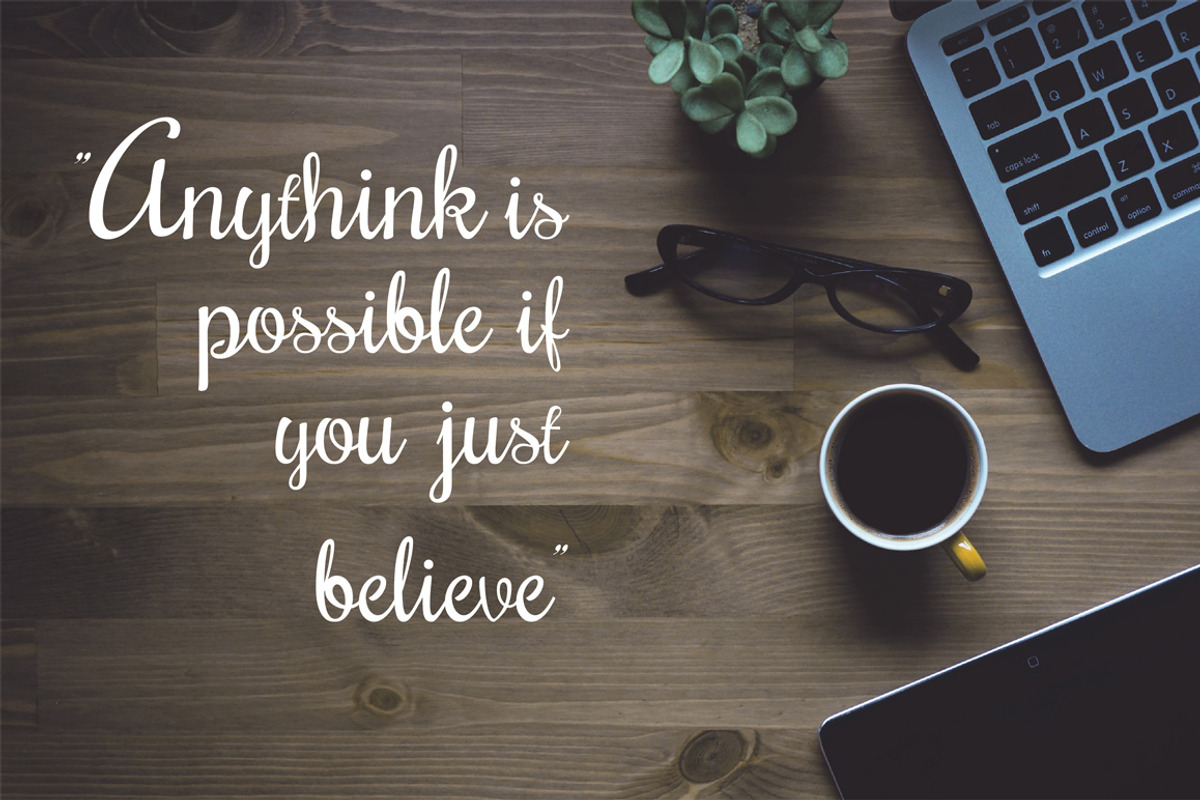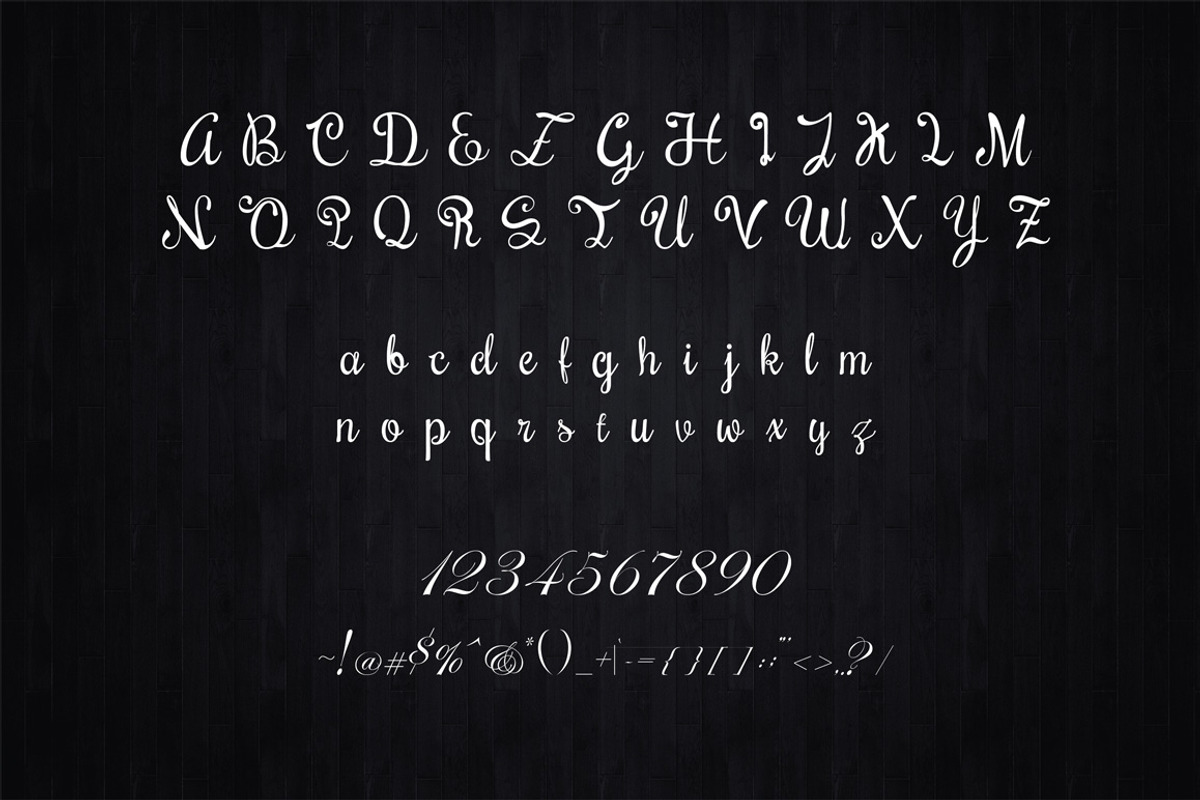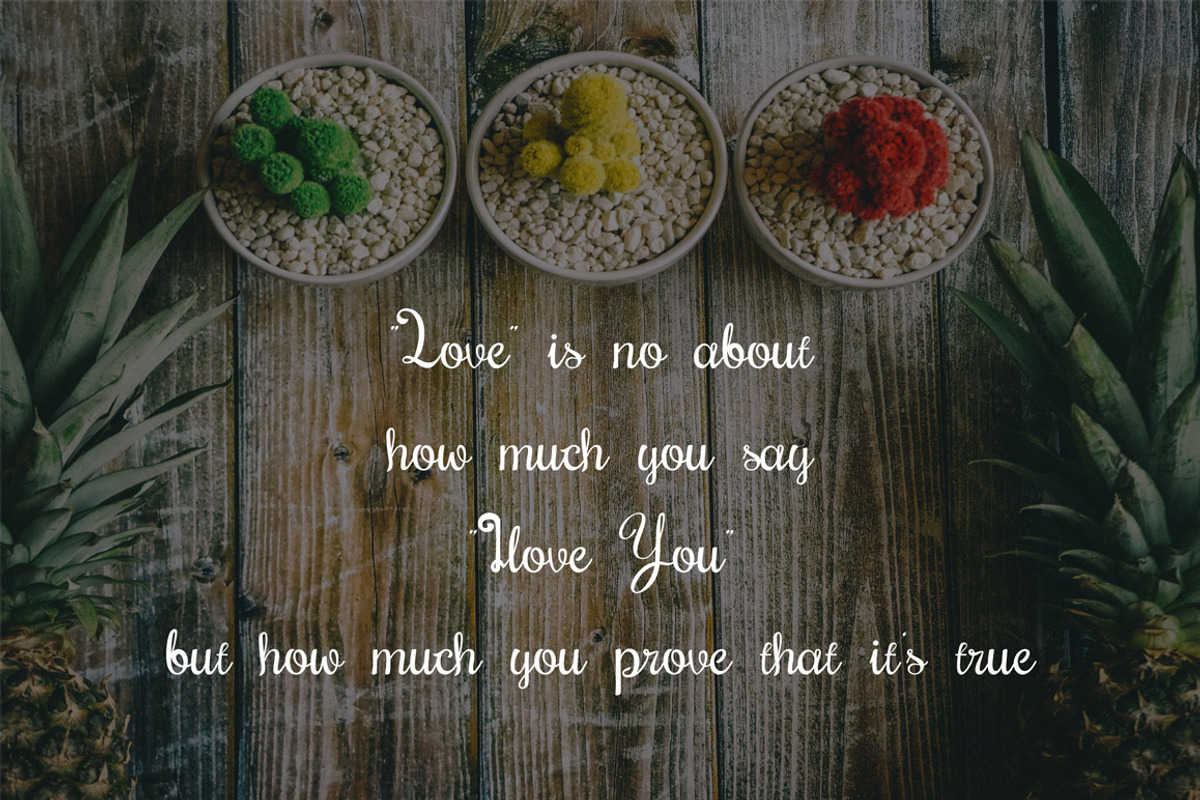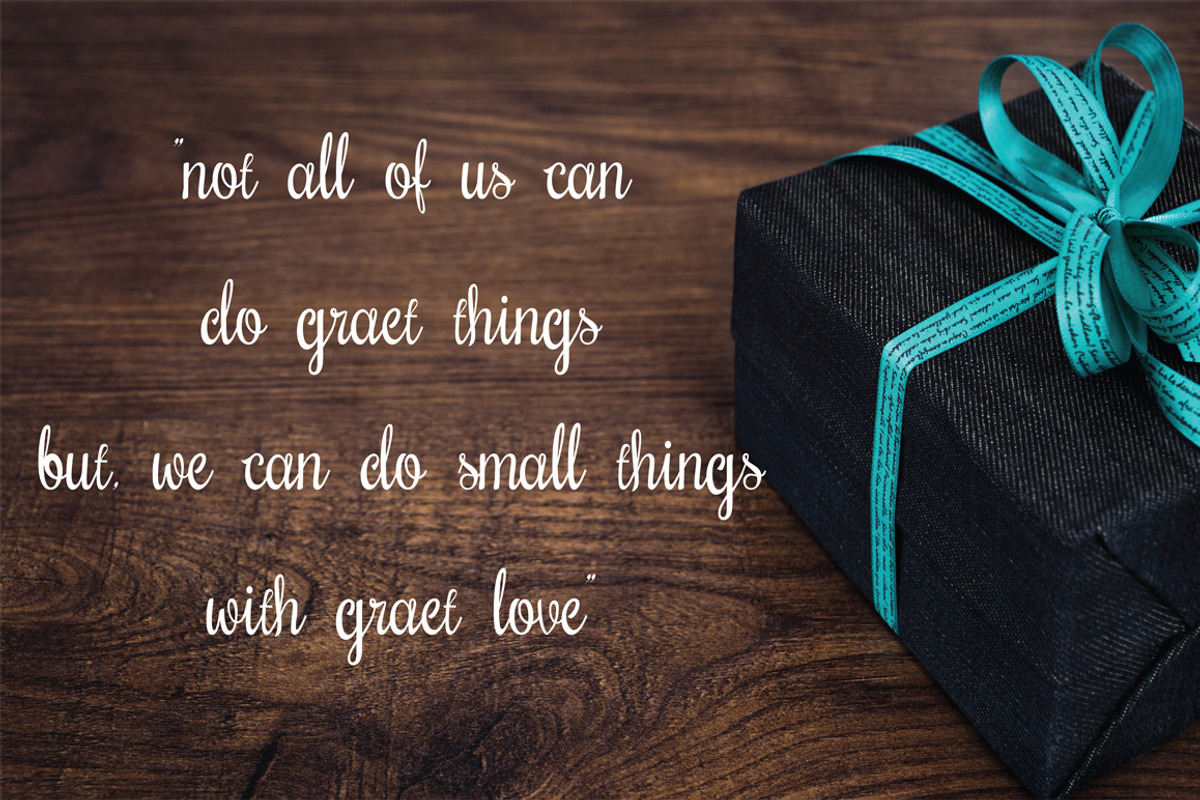
Swangga Hand Script Fonts
Swangga Hand Script Fonts by Artha Desain is a font selected for branding, posters, packaging, typography.
- Use Swangga to make a elegant logo, package design, shirts, invitations, and so much more.
Why Swangga Hand Script Fonts is worth a look
Swangga Hand Script Fonts by Artha Desain fits naturally into Branding, posters, packaging, typography.